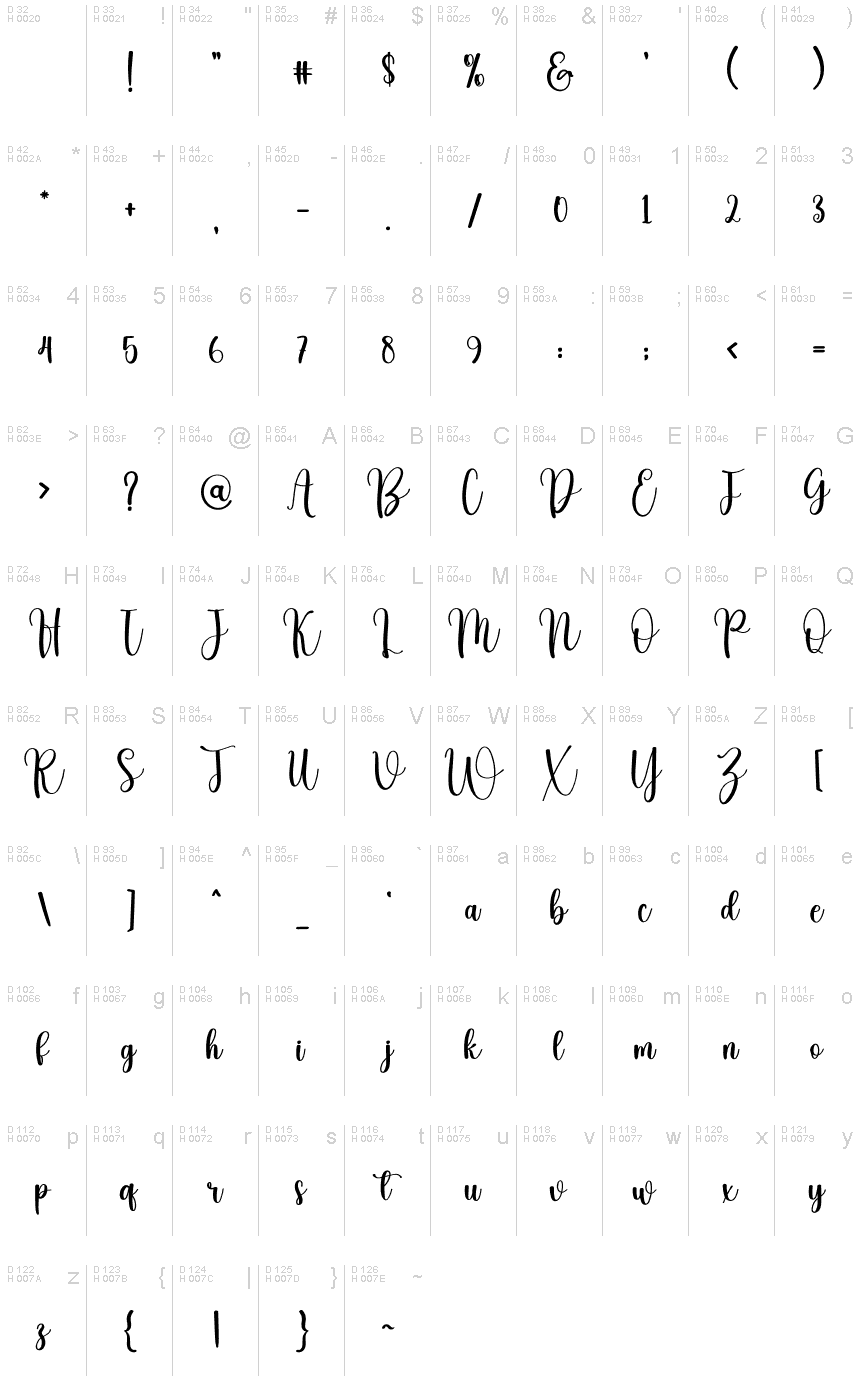
Winter Jolly
Winter Jolly, designed by FreshtypeINK, is a captivating calligraphy font that effortlessly blends elegance and playfulness. With its semi-light weight, this font exudes a delicate charm that is perfect for various projects. It adds a touch of sophistication to wedding invitations and greeting cards, while also bringing warmth and whimsy to children's book covers and posters. Winter Jolly's graceful strokes and intricate details make it an ideal choice for branding luxury products or creating stunning logos. Let this enchanting font transform your designs into works of art that leave a lasting impression.